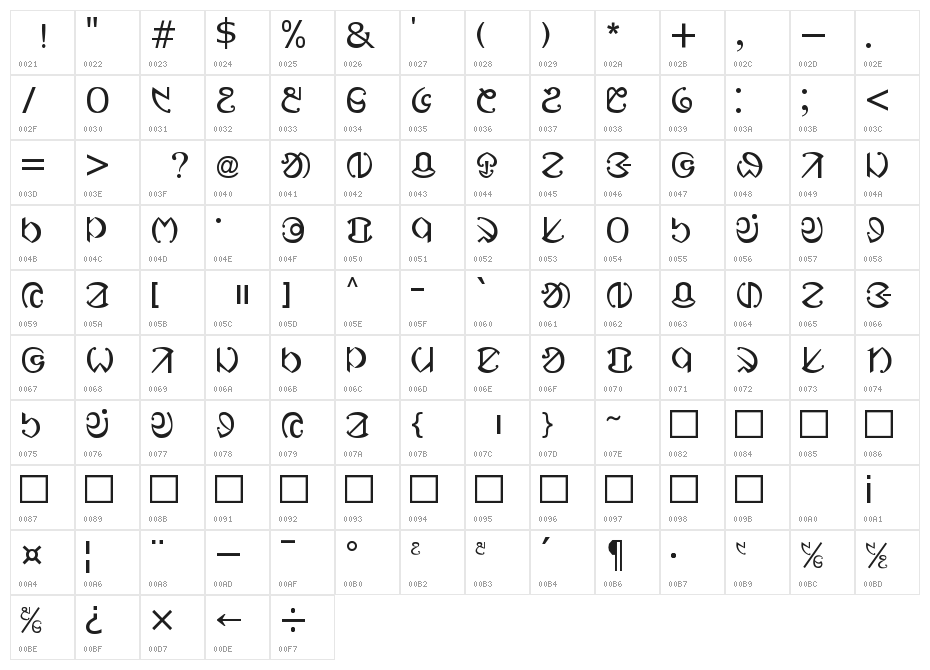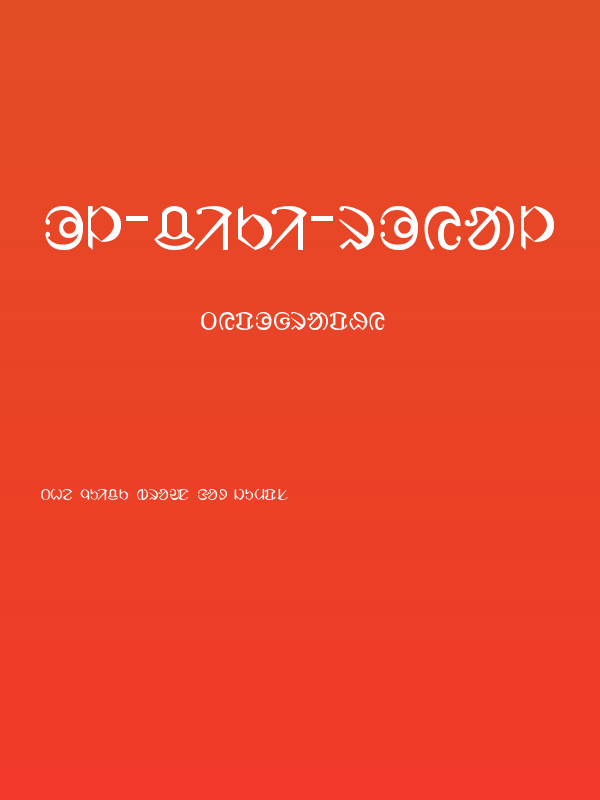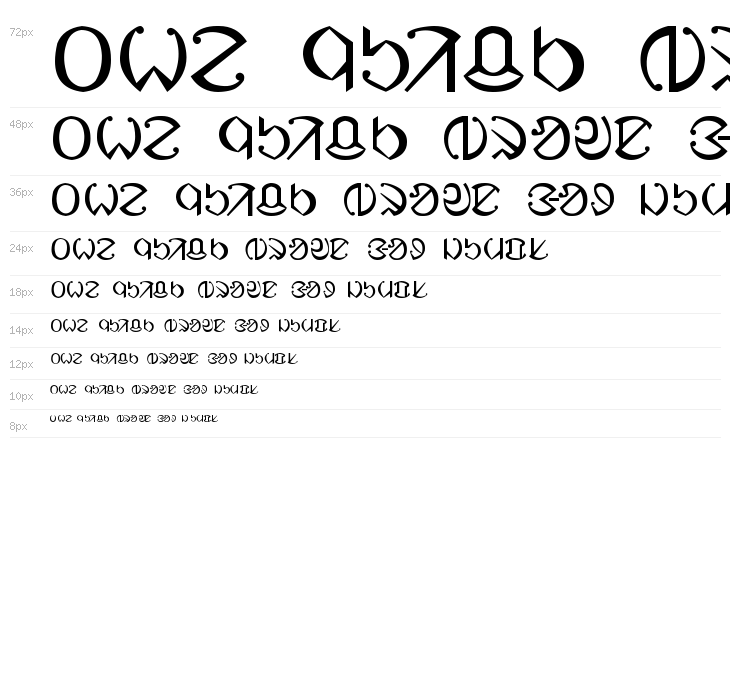
ol_ciki_royal Font
ol_ciki_royal Description
This font features a unique and decorative style, characterized by its bold and intricate letterforms. Each character is crafted with a blend of curves and sharp angles, creating a visually striking appearance. The font exhibits a high level of contrast between thick and thin strokes, enhancing its ornamental quality. Its design is reminiscent of traditional calligraphy, yet it maintains a modern flair with its stylized elements. The characters are tightly spaced, contributing to its compact and cohesive look. This font is well-suited for creative and artistic projects that require a distinctive and eye-catching typeface.